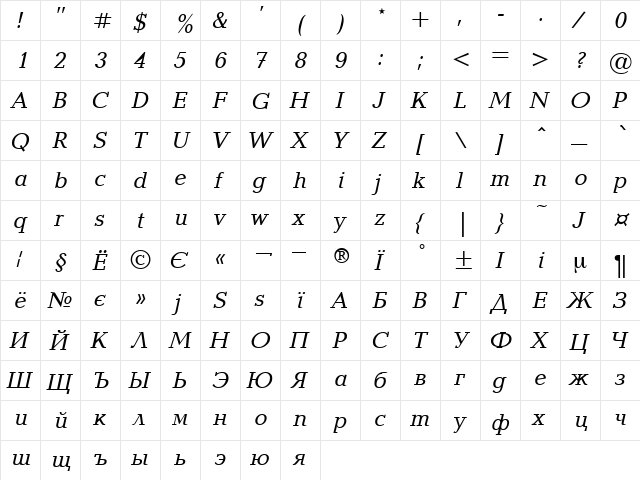
Baltic Italic
Design Context for Baltic Typeface
Baltic offers clean, dependable letterforms without strong stylistic allegiance, making it a practical choice for designers who need flexibility. The dynamic lean of this cut emphasises speed and emphasis in any layout.